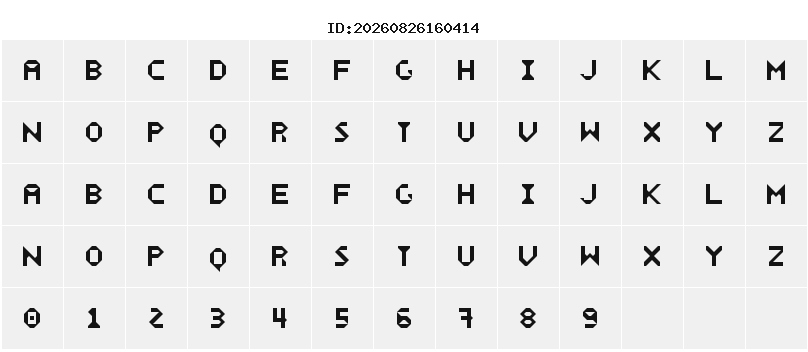
• Font Name: WECKER
• Full Font Name: WECKER Regular
• Designer: david senger
About WECKER.ttf
WECKER.ttf is a modern, elegant sans-serif font designed for ultimate readability and visual harmony. Perfect for branding, headlines, web design, and print materials.